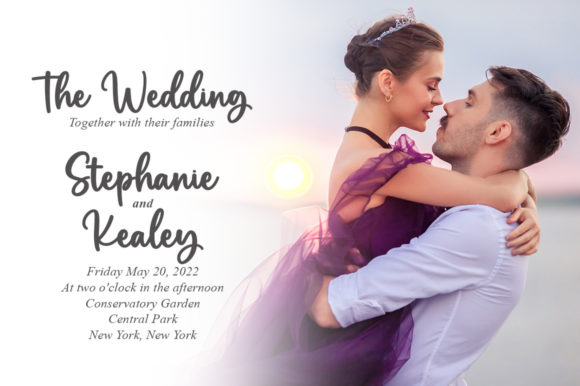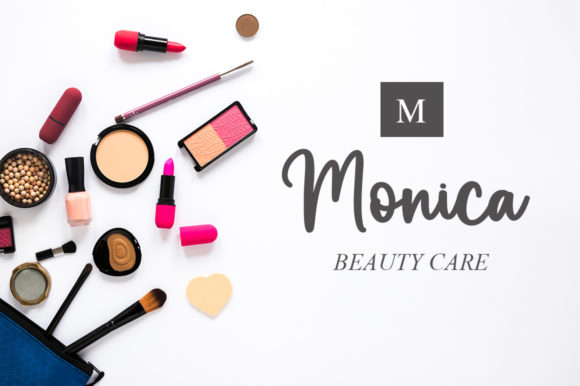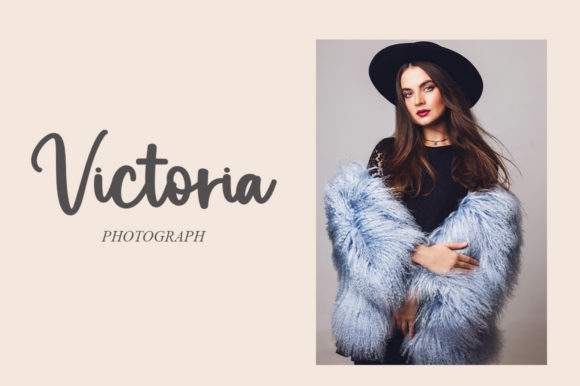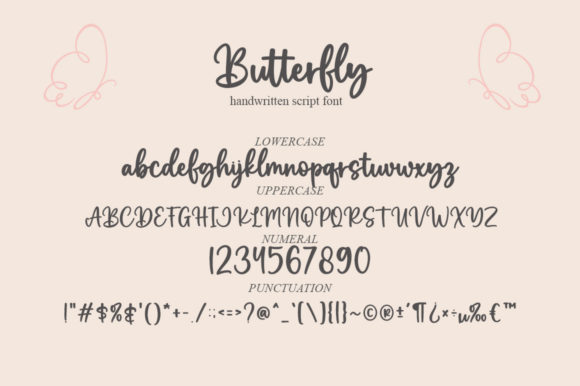
Introducing Butterfly Font: Elevate Your Designs with Elegance and Flair
Are you a designer or crafter looking for a font that embodies the essence of delicacy, elegance, and flow? Look no further than the Butterfly Font. This beautiful, handwritten font is designed to bring a touch of sophistication and whimsy to your creative projects. With its well-balanced characters and versatile nature, Butterfly Font is the perfect addition to your typographic collection.
The Beauty of Butterfly Font
Butterfly Font is a delicate, elegant, and flowing handwritten font that is sure to captivate your audience. Its beautiful and well-balanced characters make it an excellent match for a wide range of designs, from wedding invitations and branding materials to craft projects and digital content. The font’s flowing lines and curves evoke a sense of freedom and lightness, making it perfect for designs that require a touch of whimsy and playfulness.
What Makes Butterfly Font Special?
So, what sets Butterfly Font apart from other fonts? Here are a few key features that make it a standout:
- Delicate and Elegant: Butterfly Font boasts a delicate and elegant design that is sure to add a touch of sophistication to your projects.
- Well-Balanced Characters: The font’s well-balanced characters ensure that your text is easy to read and visually appealing.
- Flowing Lines: The font’s flowing lines and curves create a sense of movement and fluidity, making it perfect for designs that require a touch of dynamism.
- Versatile: Butterfly Font is versatile and can be used for a wide range of designs, from formal to informal.
How to Use Butterfly Font in Your Designs
Butterfly Font is an incredibly versatile font that can be used in a variety of design projects. Here are a few ideas to get you started:
- Wedding Invitations: Add a touch of elegance and sophistication to your wedding invitations with Butterfly Font.
- Branding Materials: Use Butterfly Font to create beautiful and eye-catching branding materials, such as logos, business cards, and letterheads.
- Craft Projects: Butterfly Font is perfect for craft projects, such as scrapbooking, card making, and DIY tutorials.
- Digital Content: Use Butterfly Font to create engaging and visually appealing digital content, such as blog posts, social media graphics, and email newsletters.
Tips for Getting the Most Out of Butterfly Font
Here are a few tips for getting the most out of Butterfly Font:
- Experiment with Different Sizes: Butterfly Font looks great in a variety of sizes, so don’t be afraid to experiment and find the perfect size for your project.
- Pair with Other Fonts: Butterfly Font pairs well with other fonts, so try pairing it with a bold font for a striking contrast.
- Use in Combination with Images: Butterfly Font looks great in combination with images, so try using it to add text to your photos or illustrations.